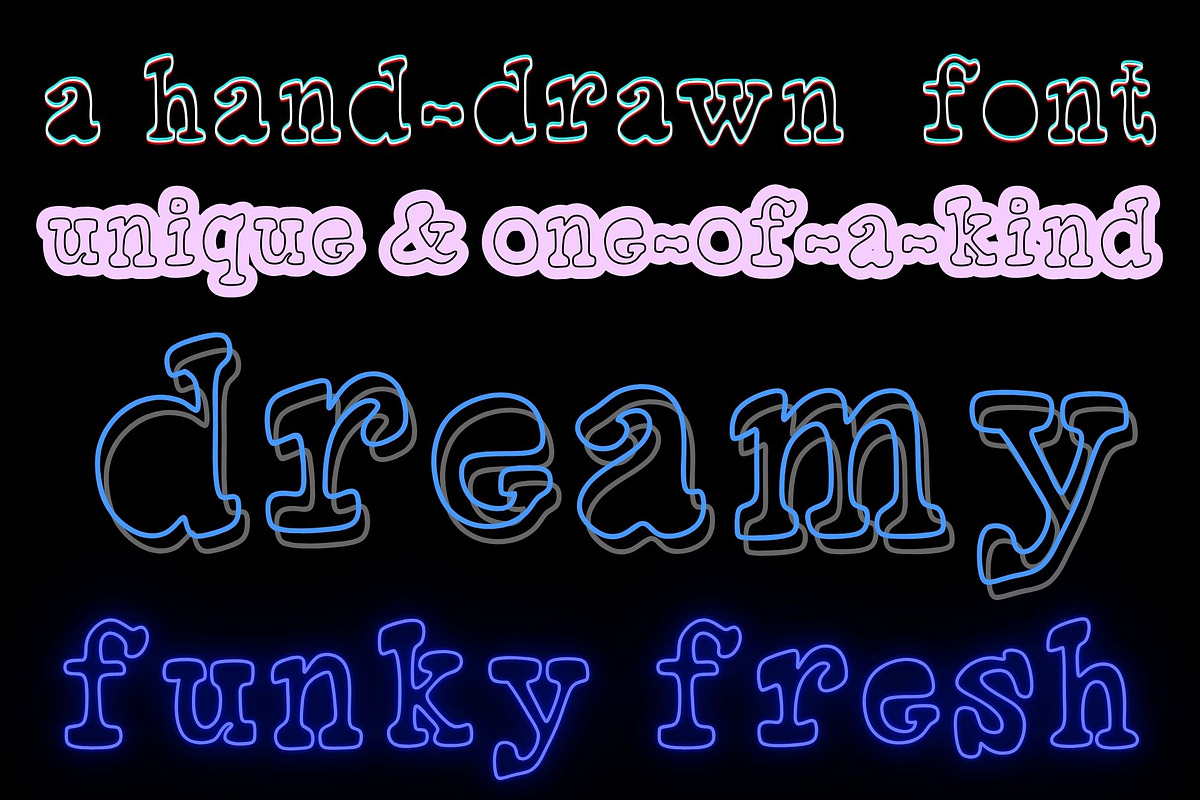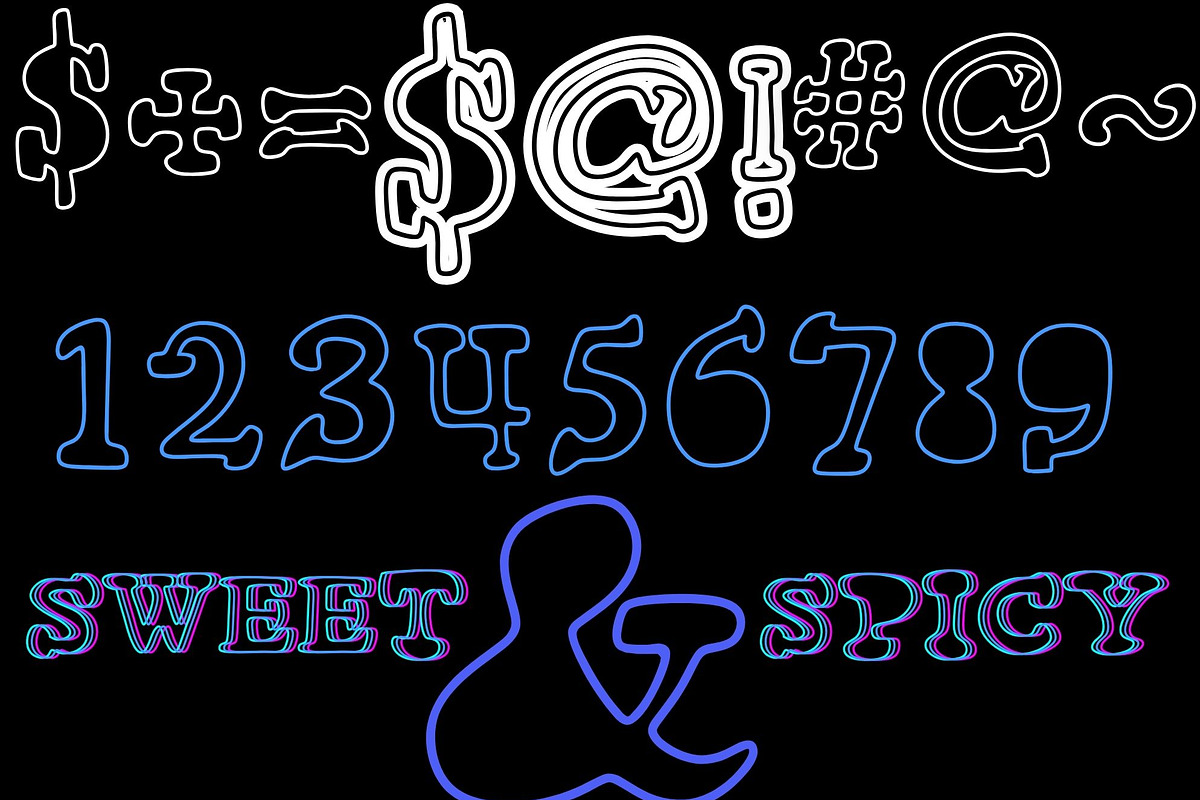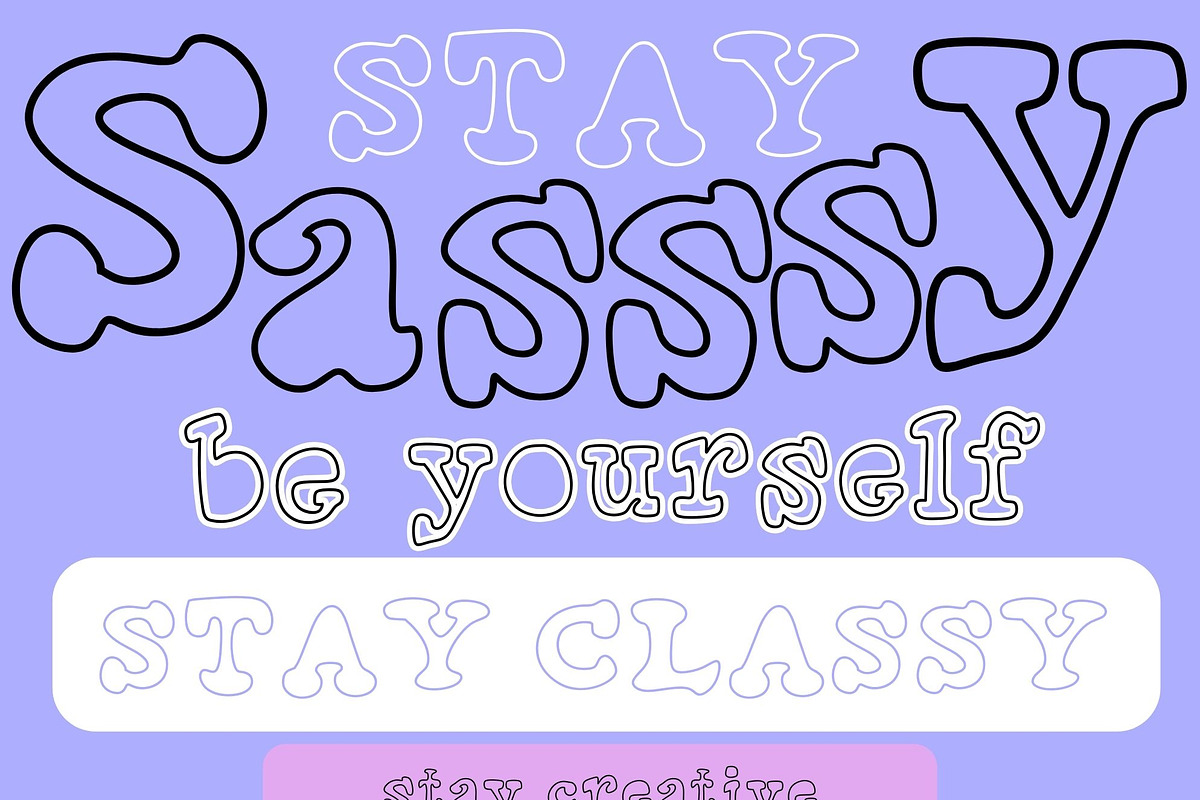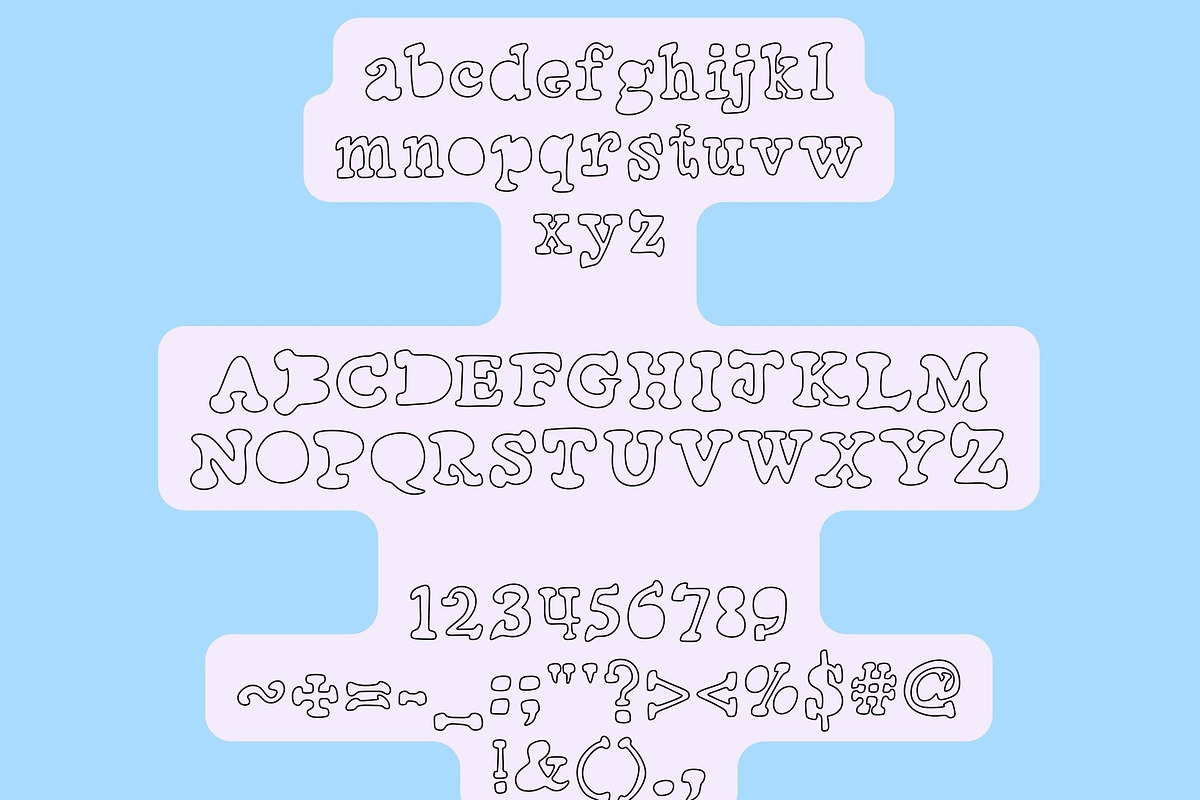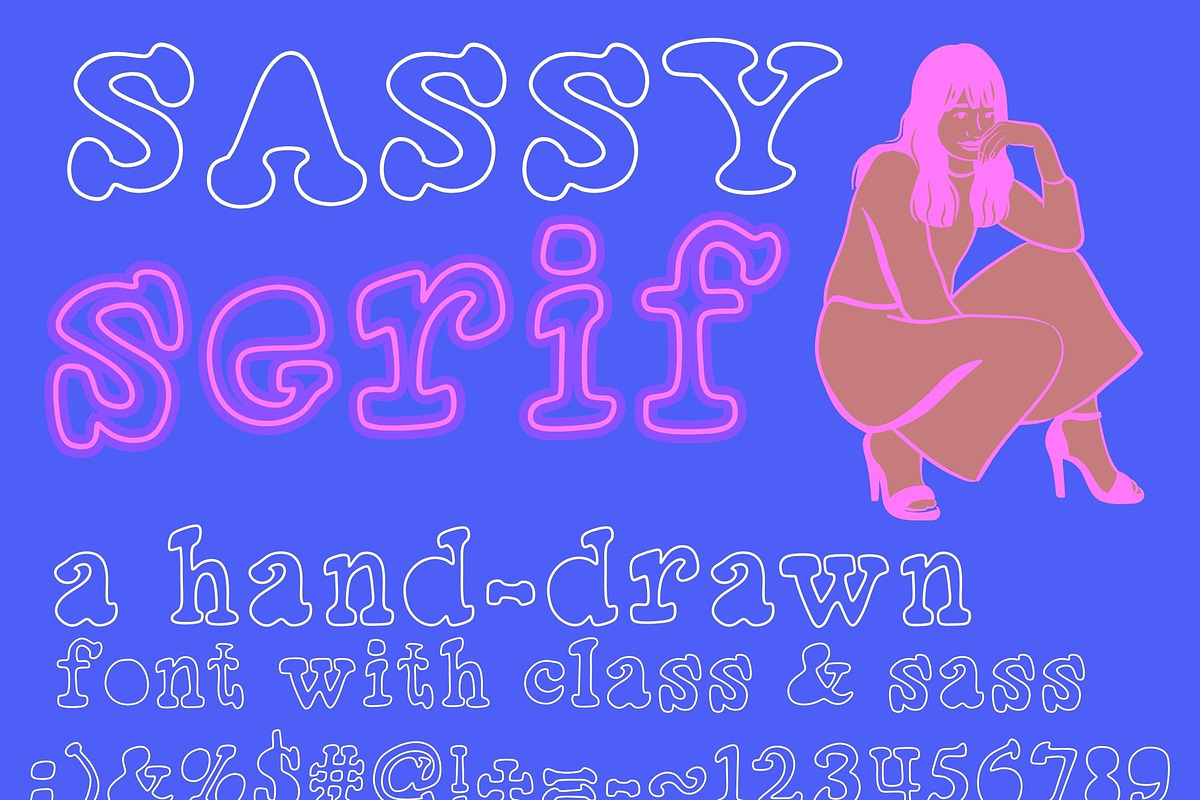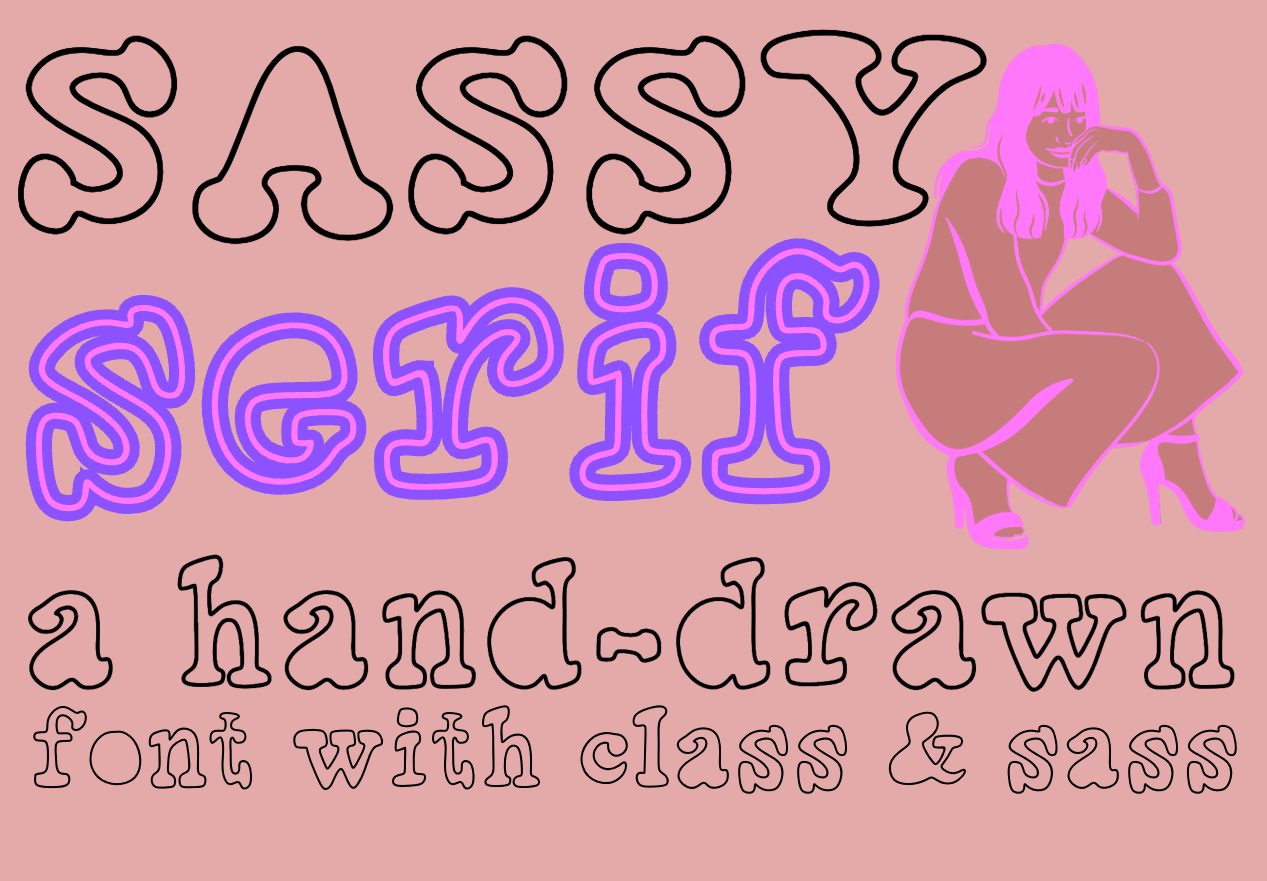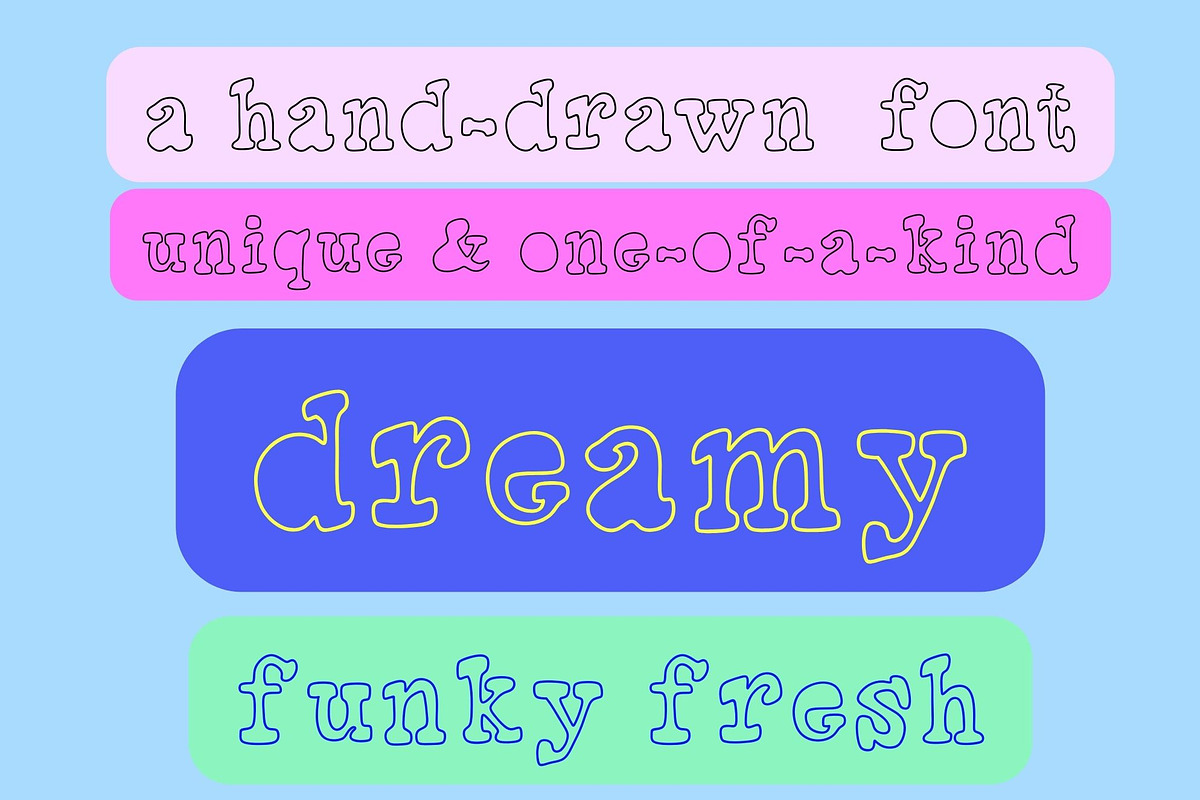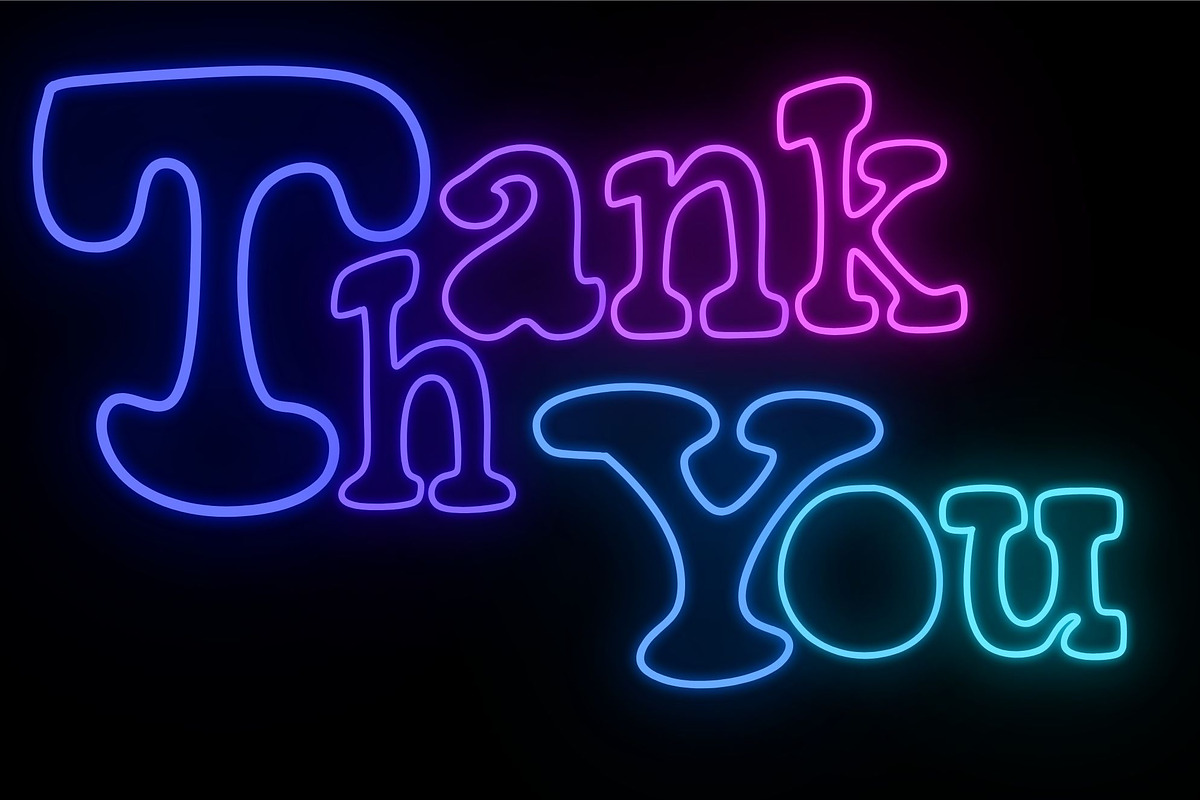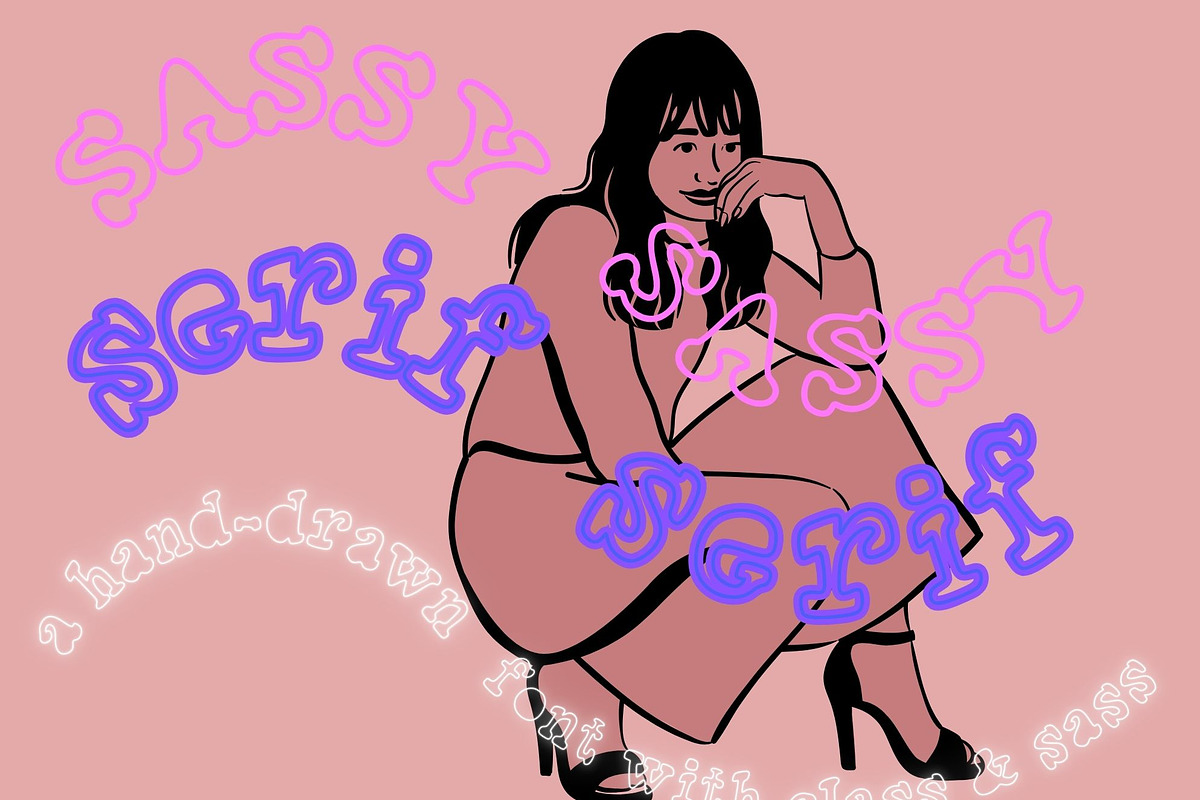
Sassy Serif a hand-drawn font
Sassy Serif - you won't find a font like this one; She's classy and sassy, sweet and spicy. A unique open-faced, hand-drawn font with large open O's and A's; she's a serif with bigger details & personality than your average serif. This font is naturally open and already has the effect of the outline feature. This font does well under any effect you place on her , and can wear bold, neon, double outlined , or echoed very well. I love that this font does so well over backgrounds due to her open and transparent look. If you are looking for a hip and new aesthetic, yet something that won't go out of style, look no further than Sassy Serif. Have Fun !
full alphabet and standard symbols